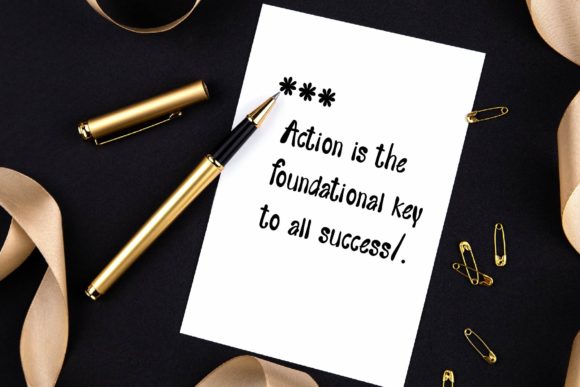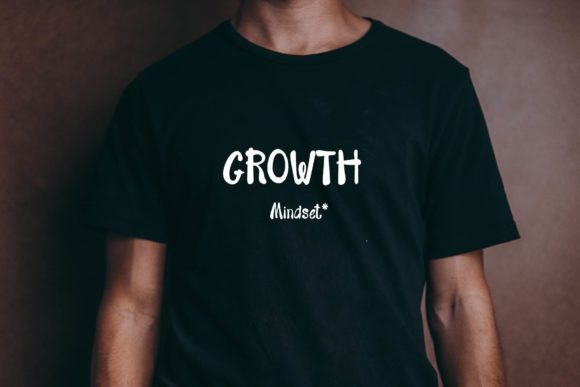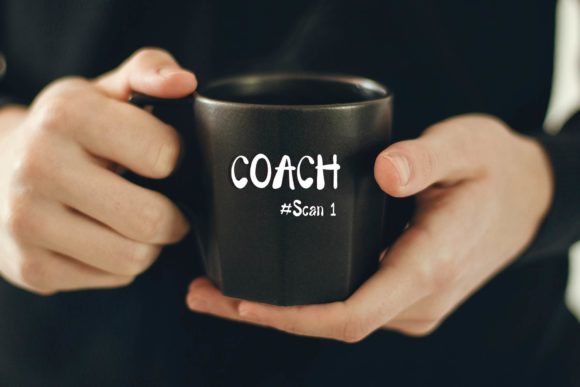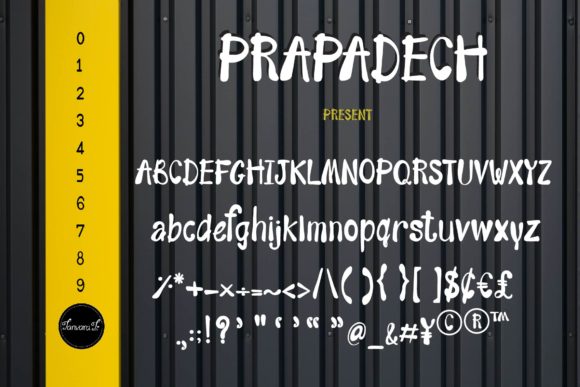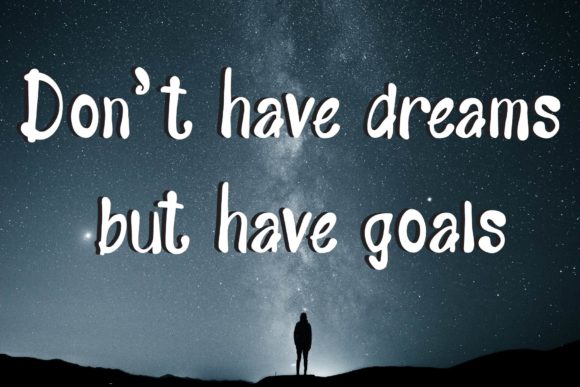
Prapadech Font
About Prapadech Font
Prapadech is a cute and quirky handwritten font. Its natural and unique style makes it incredibly fitting to a large pool of designs. The only limit is your imagination!